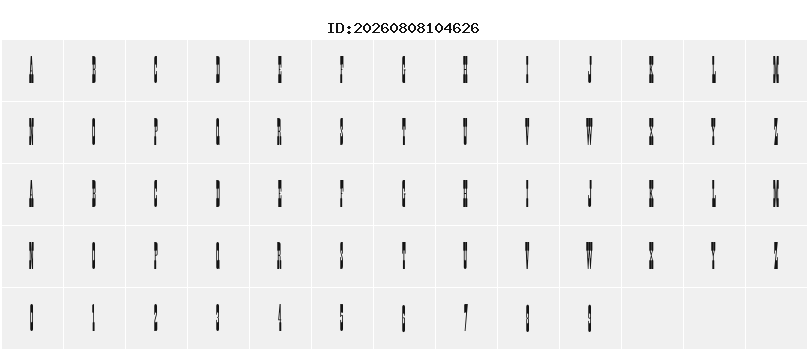
Posse Preview
• Font Name: Posse
• Full Font Name: Posse
About Posse.ttf
Posse.ttf is a modern, elegant sans-serif font designed for ultimate readability and visual harmony. Perfect for branding, headlines, web design, and print materials.